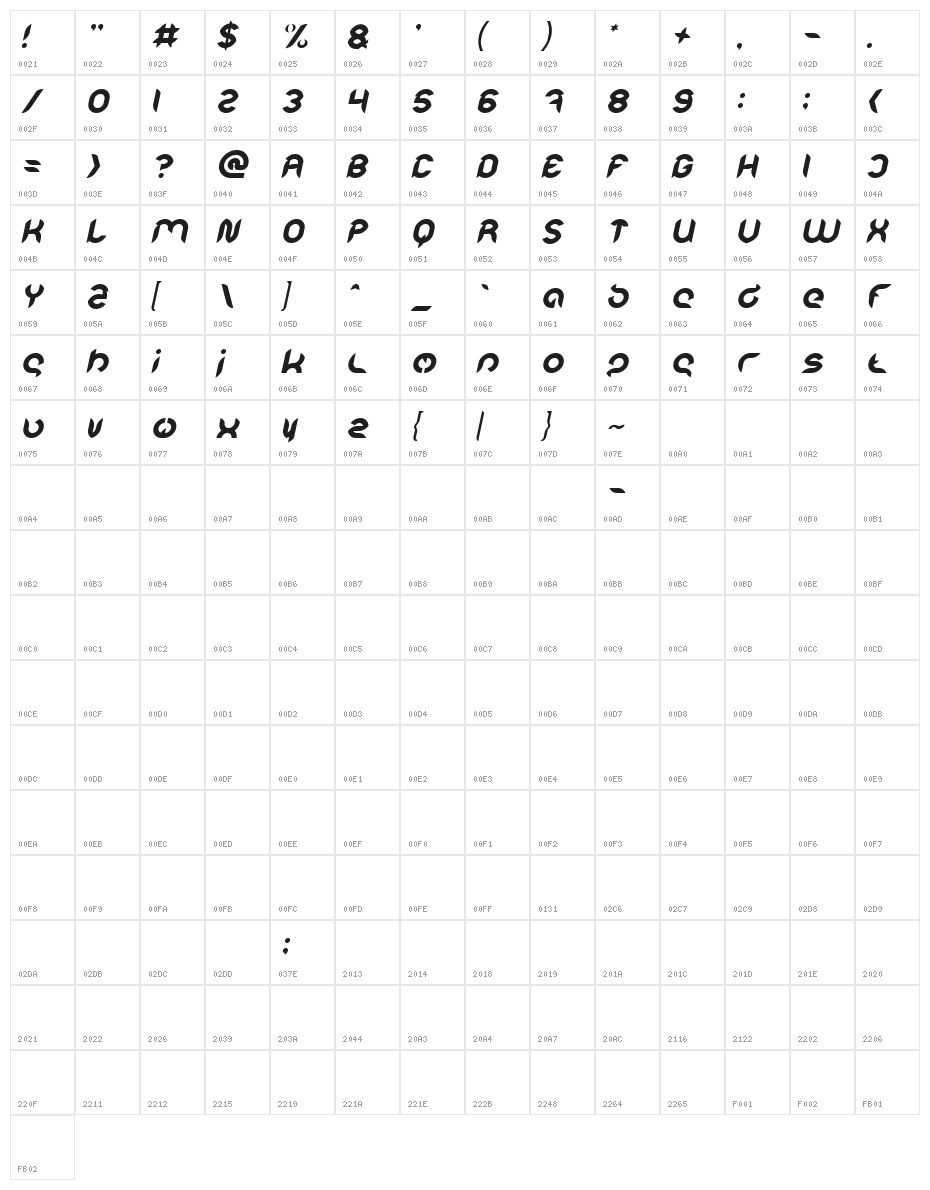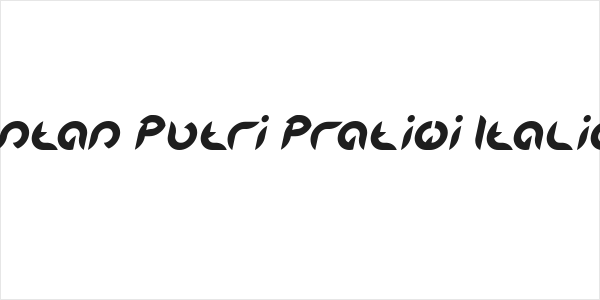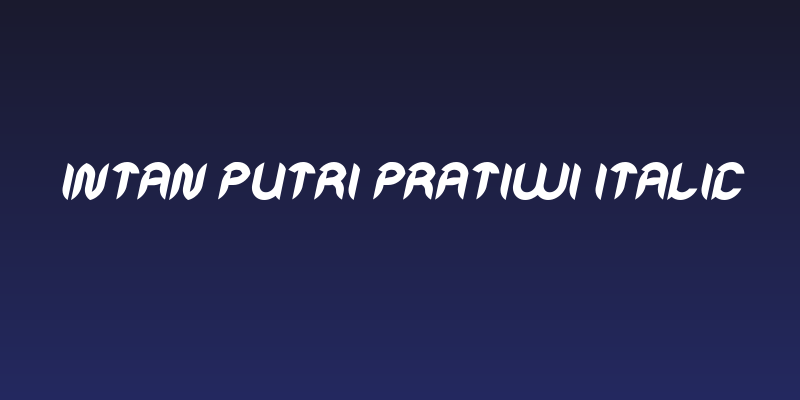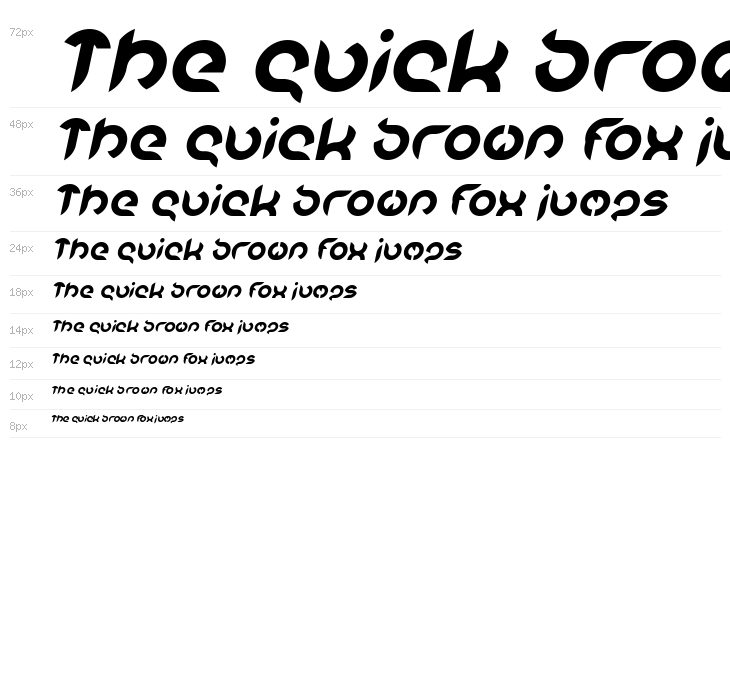
Intan Putri Pratiwi Italic Font
Intan Putri Pratiwi Italic Description
This font features a bold and dynamic style with a distinct italic slant, giving it a sense of motion and energy. The characters are crafted with thick strokes and sharp, angular edges, creating a modern and edgy appearance. The uppercase and lowercase letters maintain a consistent flow, while the numerals and special characters complement the overall design. The font's unique style makes it stand out, offering a fresh and contemporary look suitable for various creative projects.
| Proposed Projects | Ideal for branding, posters, headlines, and any design project that requires a bold and modern aesthetic. |